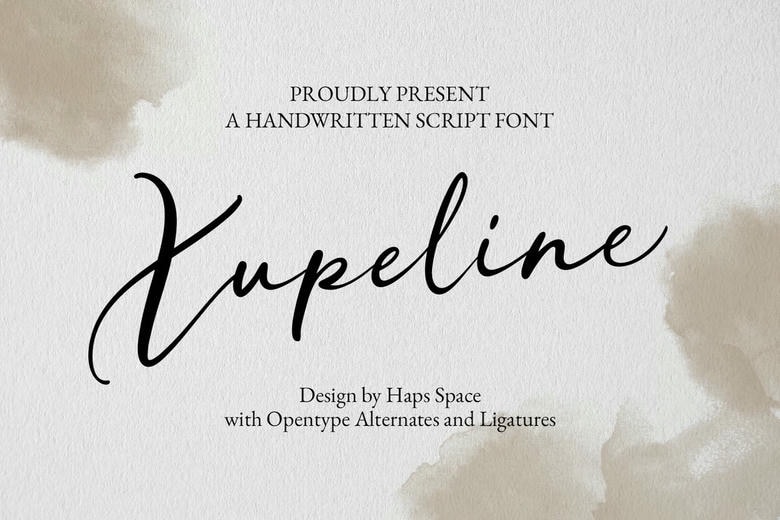
Xupeline Font
Xupeline font is a classy handwriting design. It has a fragile and flowing aesthetic, with flowing lines and a natural and original hand-written look. The OpenType special characters are added to this font: stylistic alternates, ligatures that provide greater typographic coloring and more natural, interrelated flow of characters.
The best fit of Xupeline is in the projects that need a personal, high stylish and artsy touch like in the case of branding, invitations, stationery, editorial design and social media graphics. Its natural beauty and elegant articulateness is suited to the development of powerful and memorable visual messages.
Xupeline Handwritten Script Font